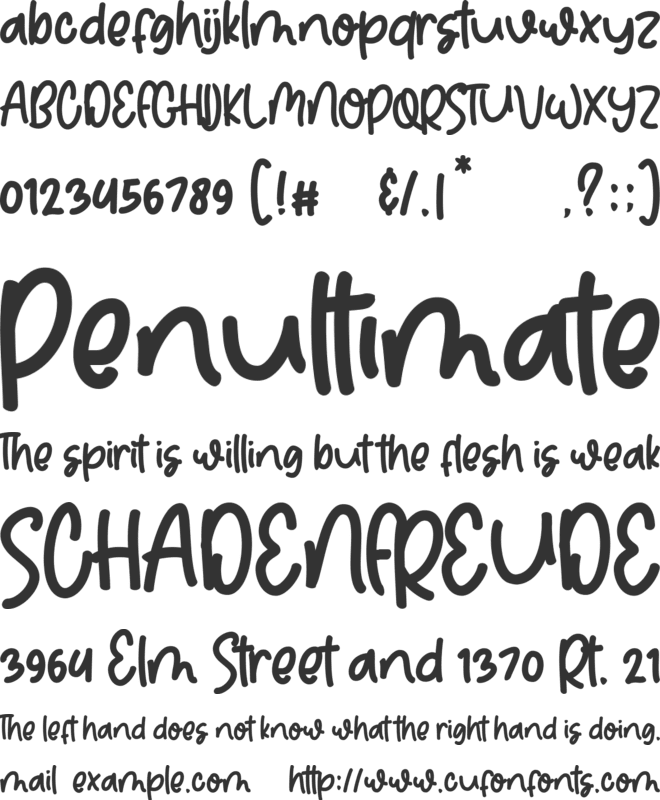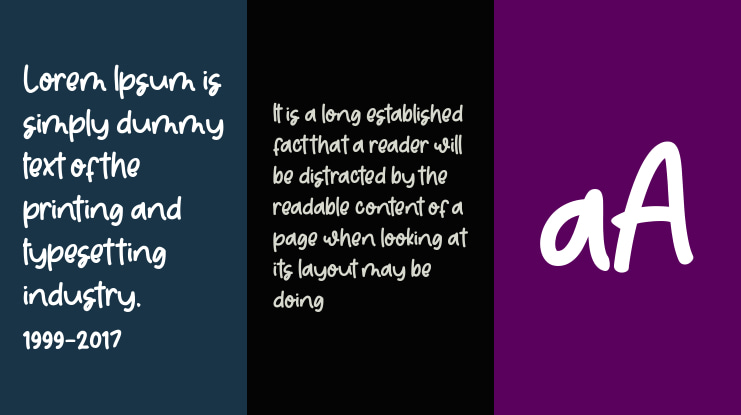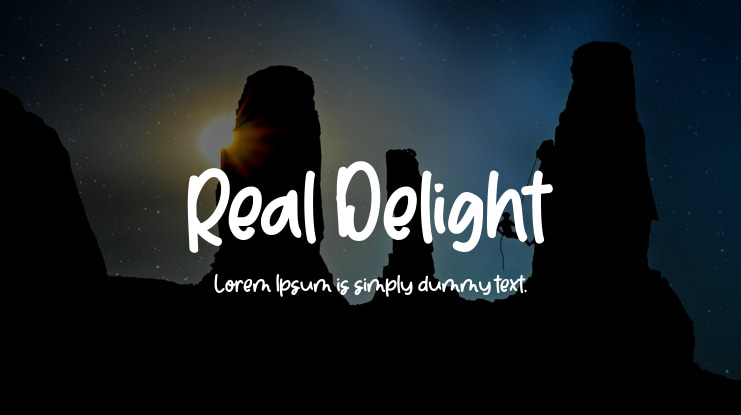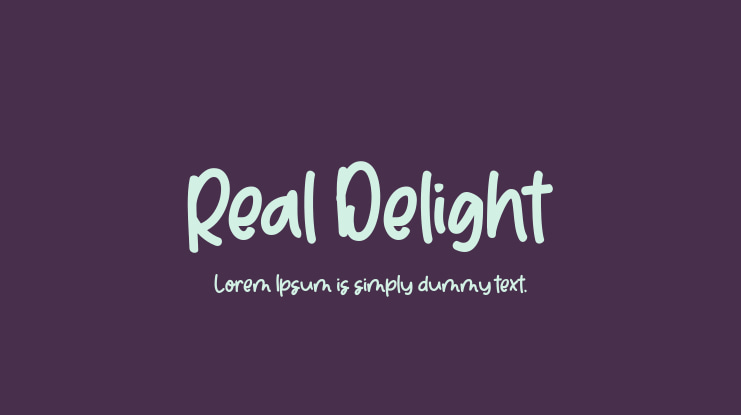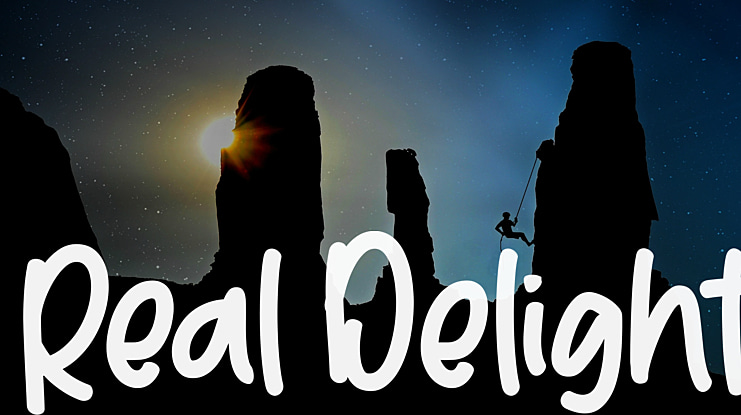
Real Delight Font
Real Delight is a cool and natural handwritten font. It can be used for various designs, such as logos, labels, branding and pretty much anything that requires a relaxed touch.